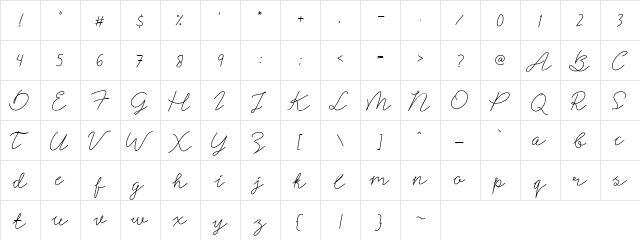
Signerella Script Regular
| Foundry | Letterhend Studio |
| Designer | Letterhend Studio |
Design Context for Signerella Script Typeface
Signerella Script brings a calligraphic fluidity to the page — its connecting strokes and expressive curves give it an unmistakably human quality.
Font Pairing: Combine Signerella Script with a simple geometric sans for maximum contrast — the tension between flowing curves and clean structure is a classic typographic pairing.
Pro Tip: Pair Signerella Script with a clean sans-serif for supporting text. The contrast between fluid script and geometric structure creates an elegant typographic hierarchy.